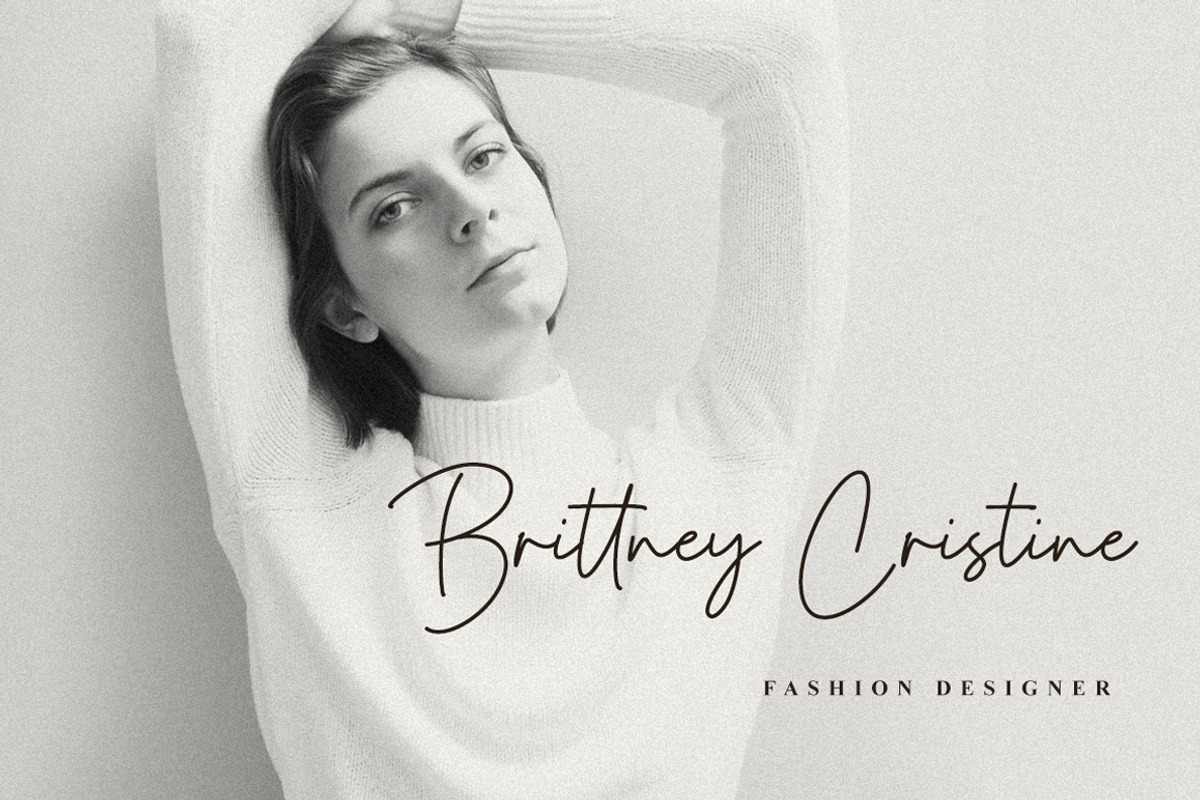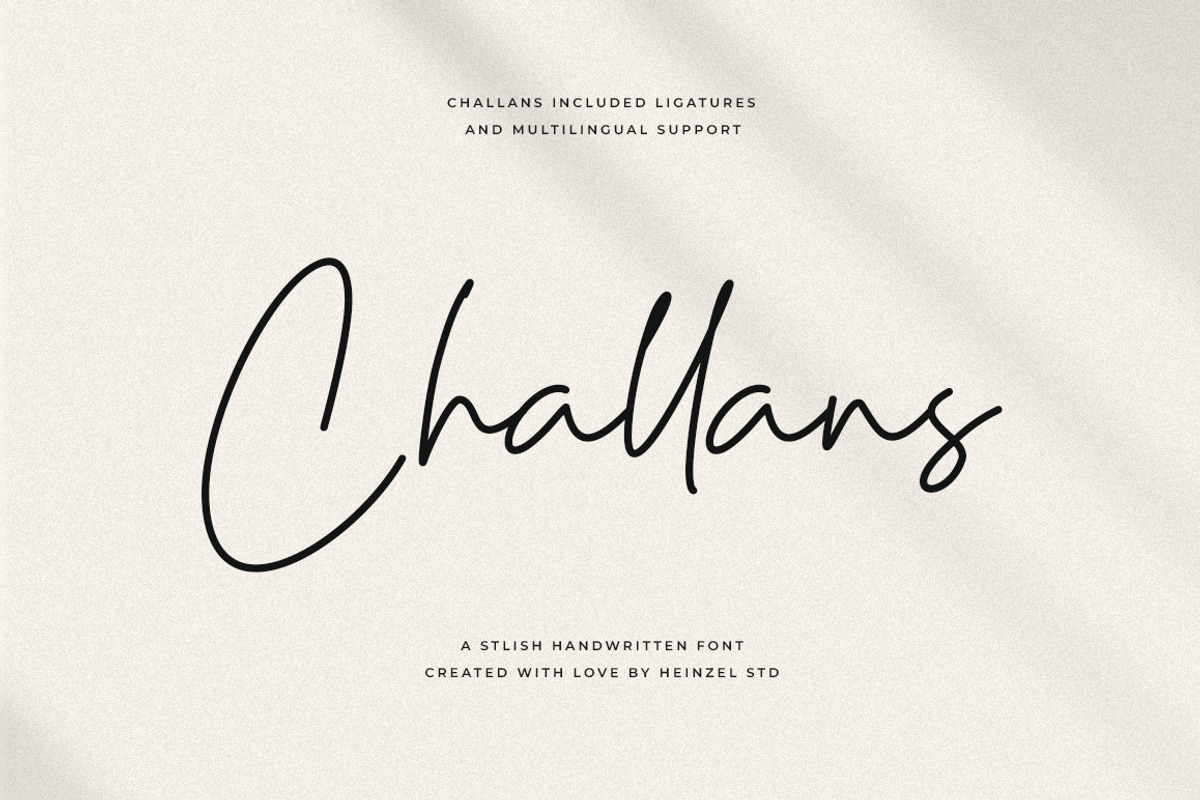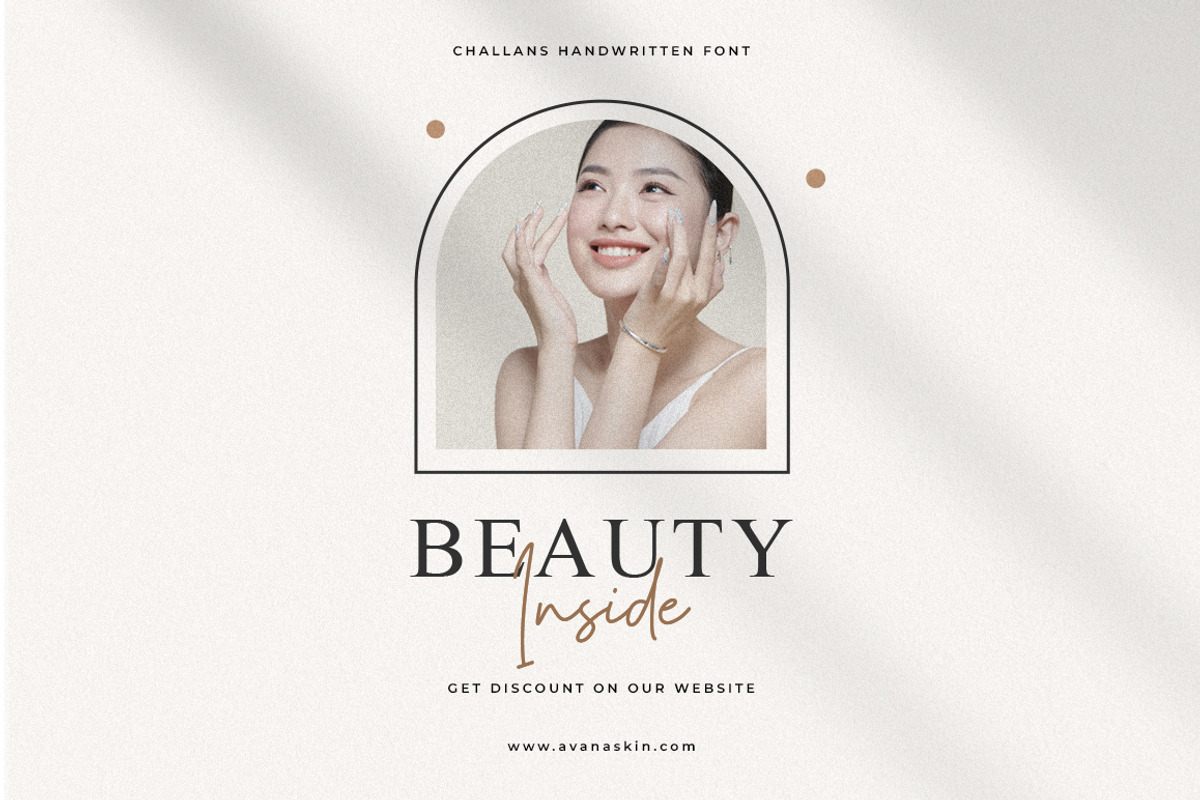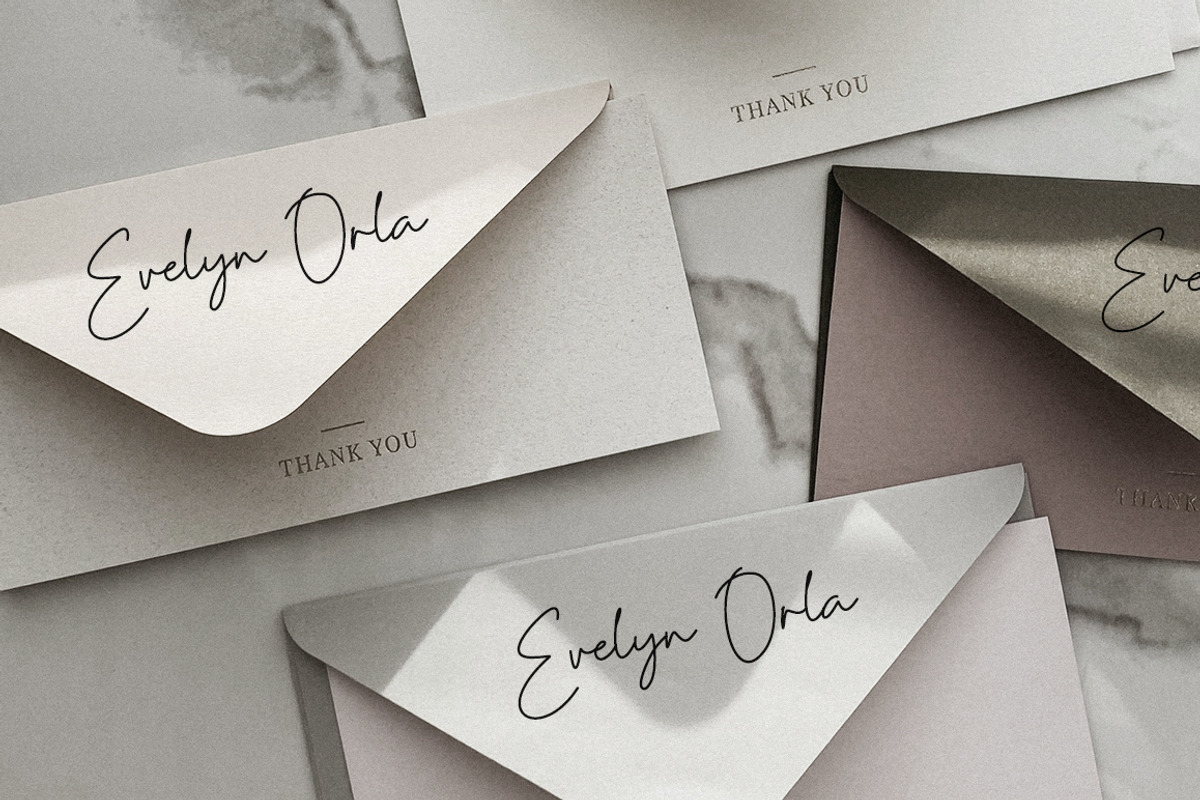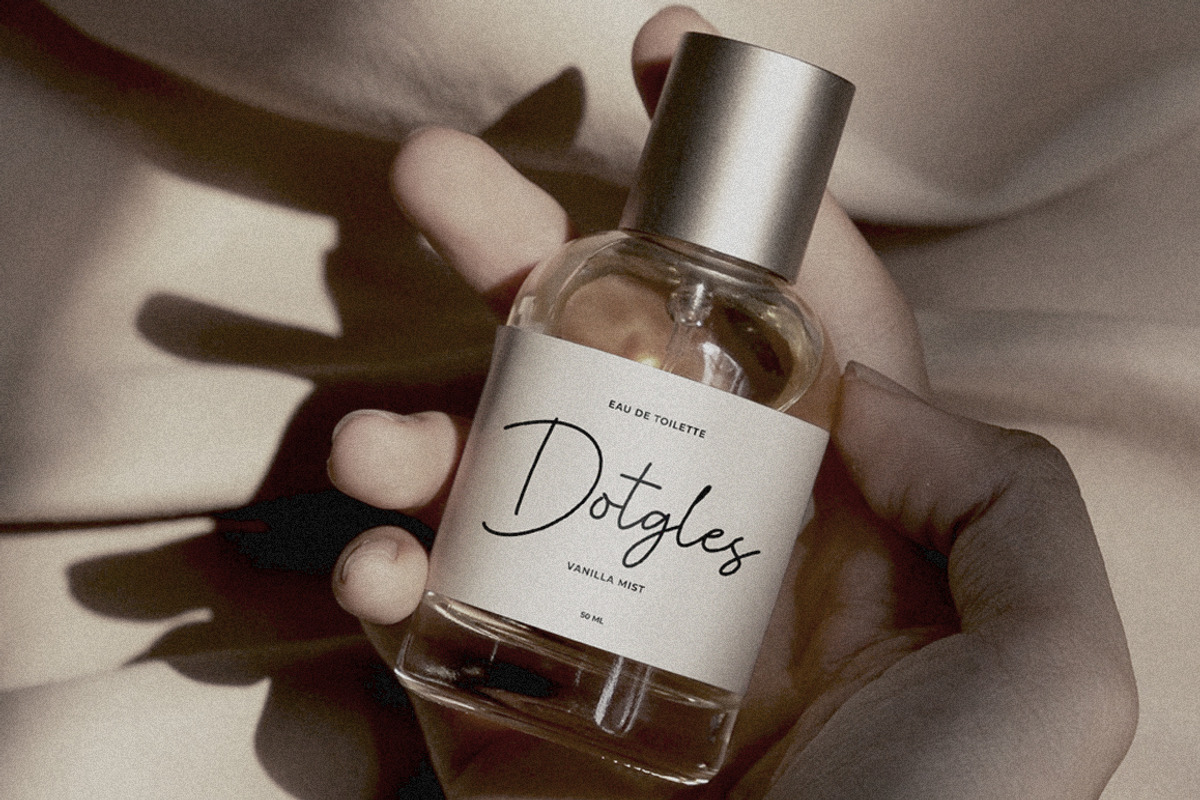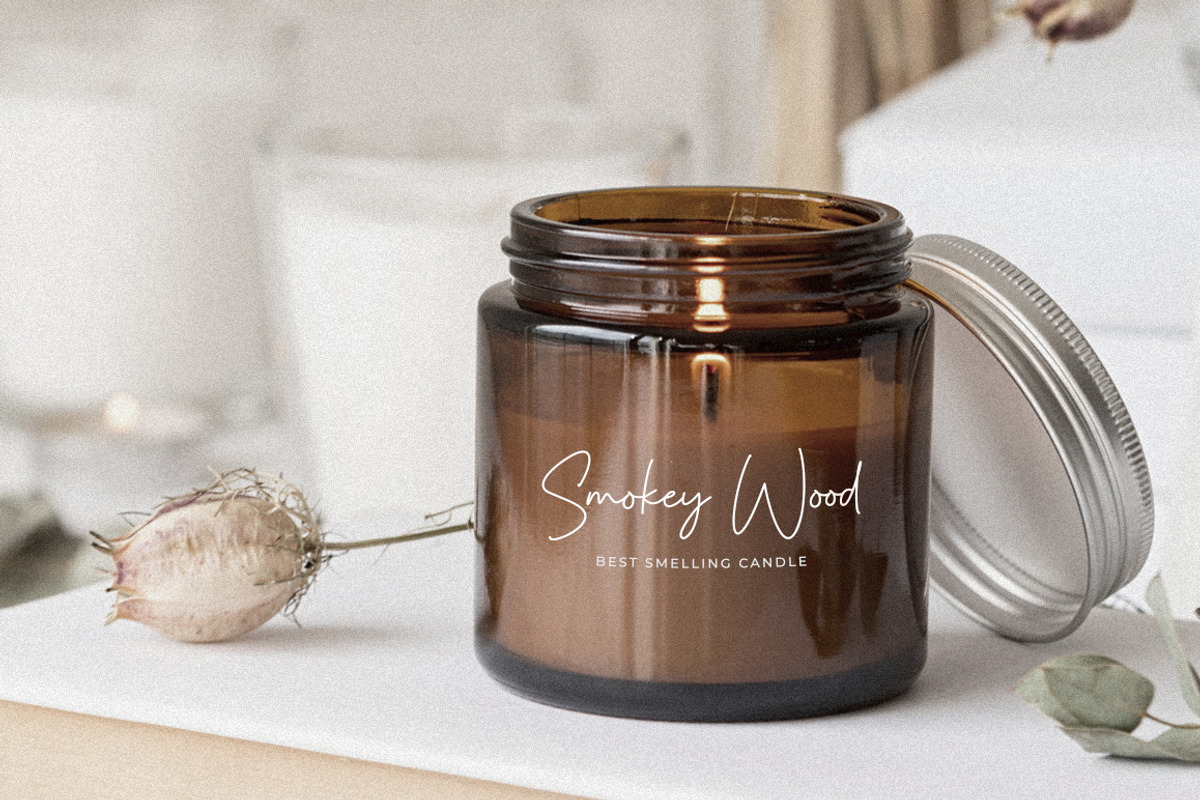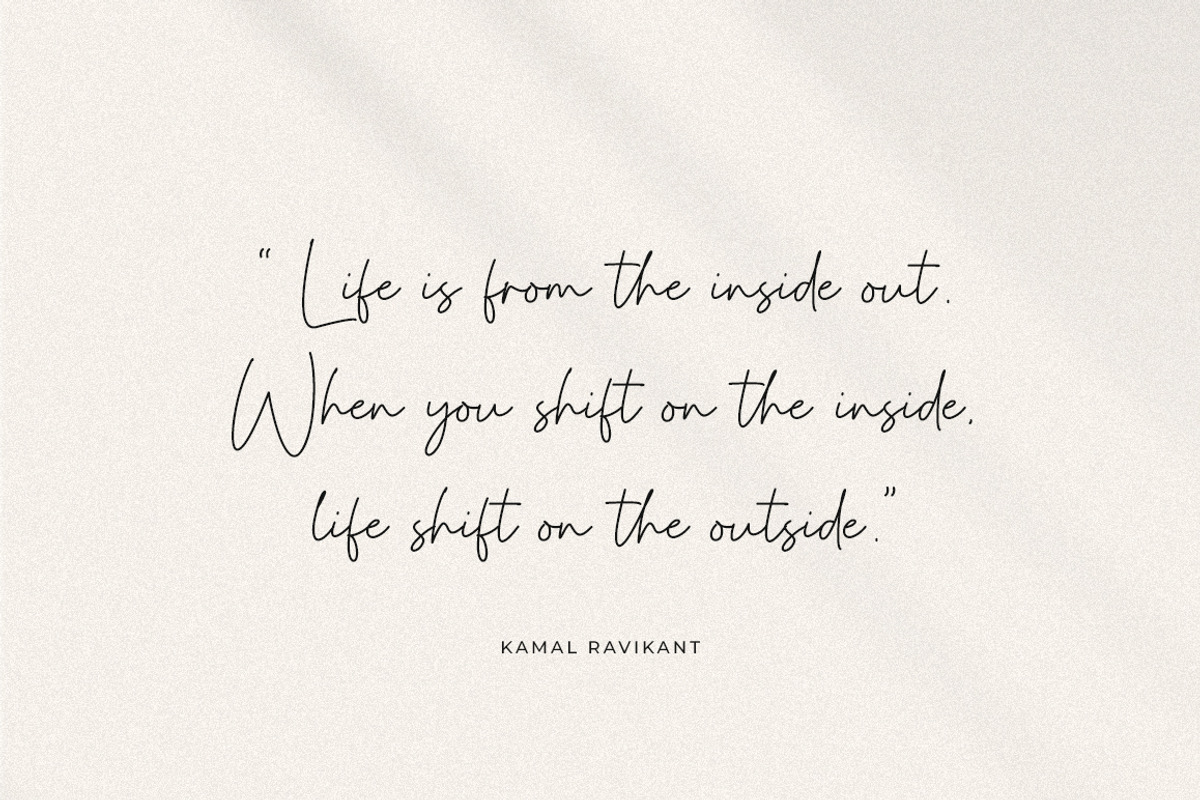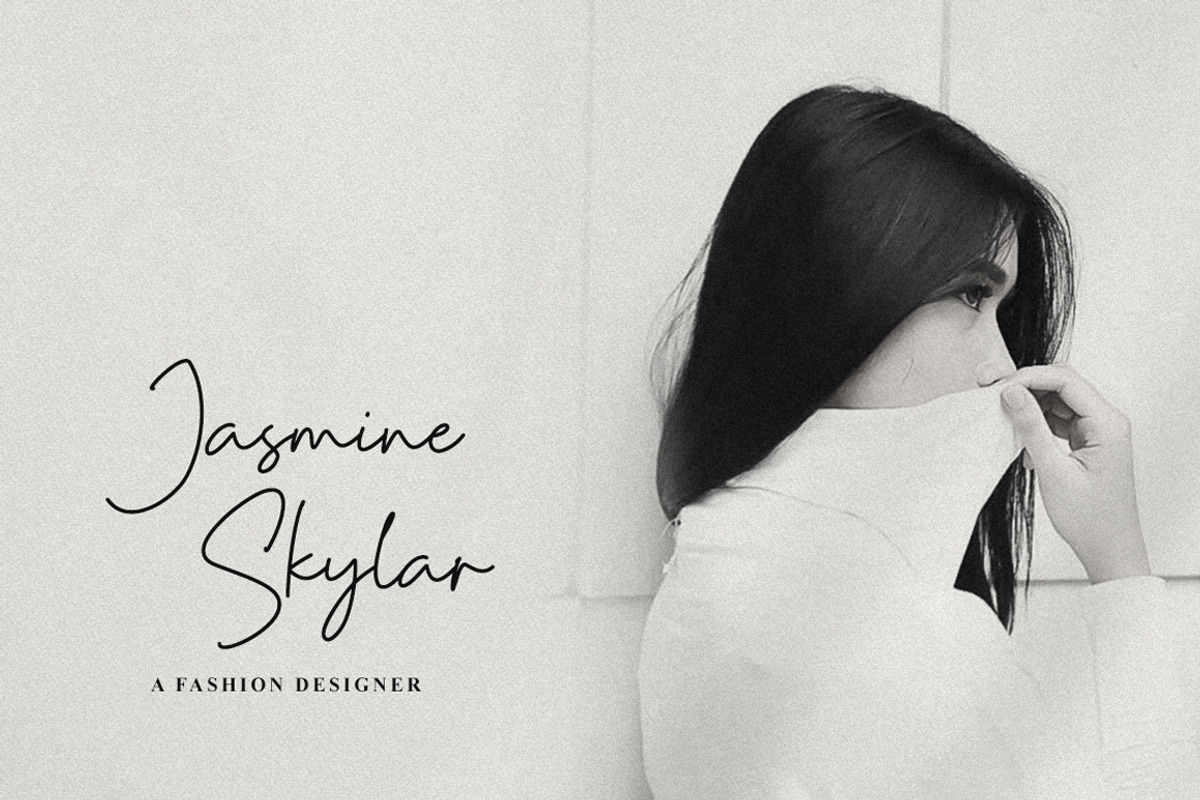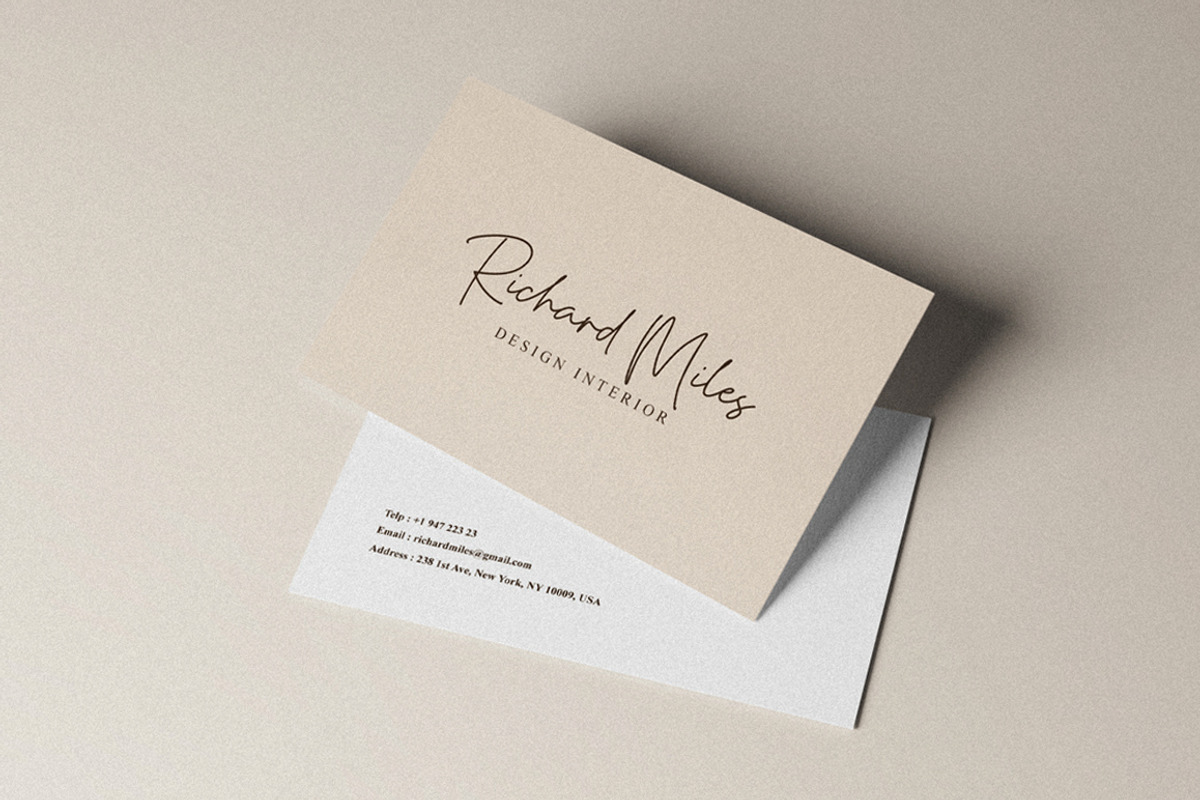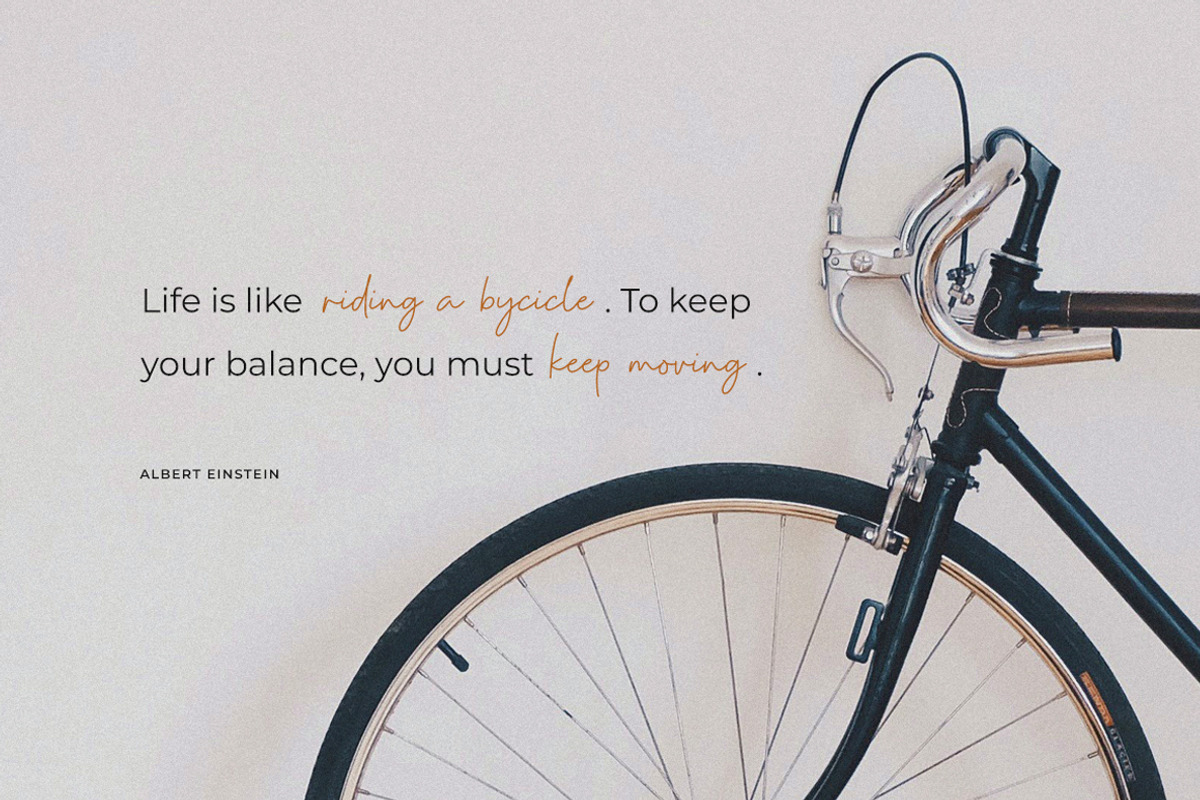
Challans | Stylish Handwritten Font
Challans is a stylish handwritten font, described by an elegant touch, perfect for your favorite projects. It looks stunning on wedding invitations, thank you cards, quotes, greeting cards, logos, branding, business cards, social media posts, magazines, marketing materials, and every other design that needs a handwritten touch. Fall in love with its incredibly distinct and timeless style and use it to create spectacular designs!
Challans Features:
- Regular Version
- Numerical and Punctuation
- Multilingual Language
- Easy To Use
This character set supports the following 21 languages: Afrikaans, Basque, Breton, Catalan, Danish, Dutch, English, Finnish, French, Gaelic (Irish, Scots), German, Icelandic, Indonesian, Irish, Italian, Norwegian, Portuguese, Saami (Southern), Spanish, Swahili, Swedish.